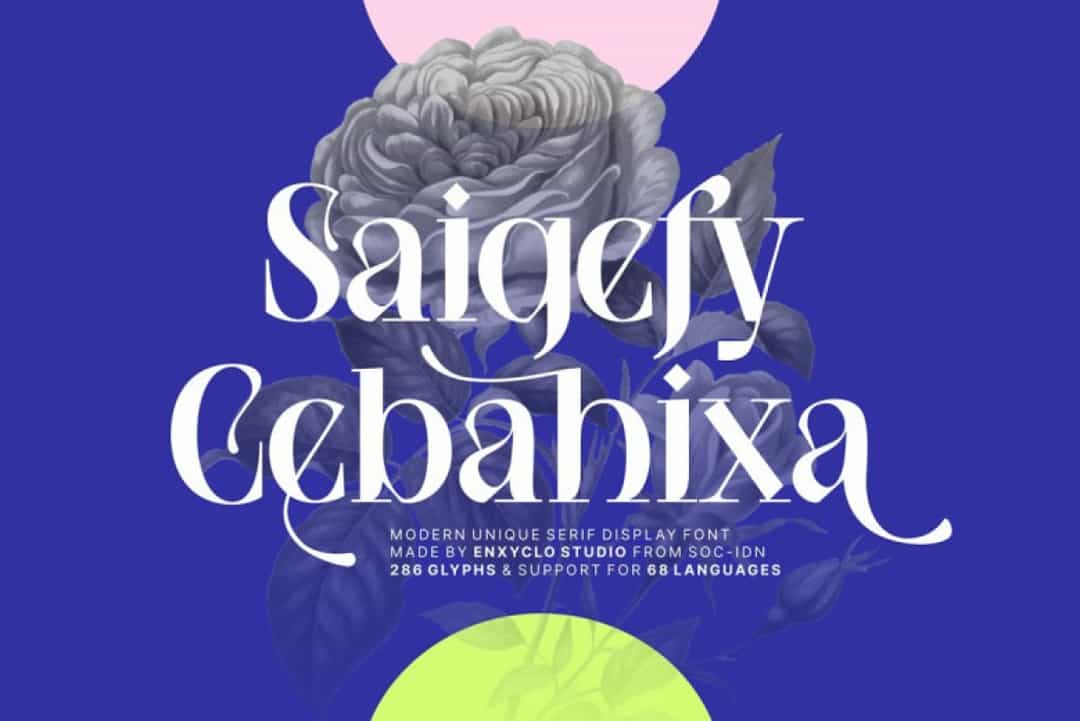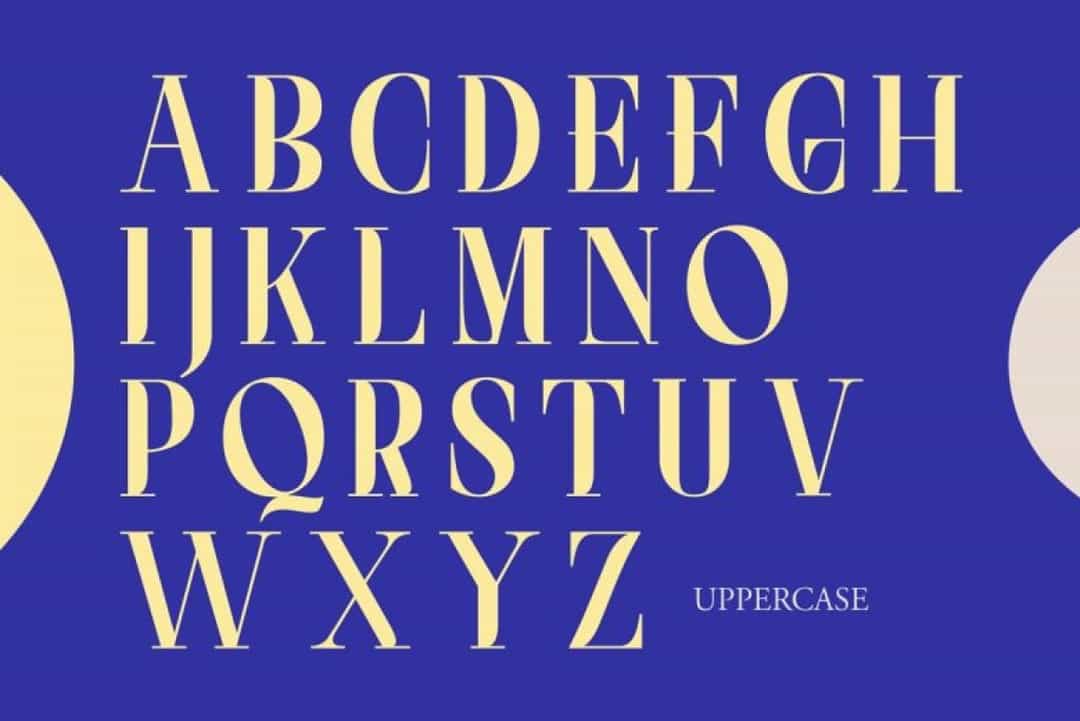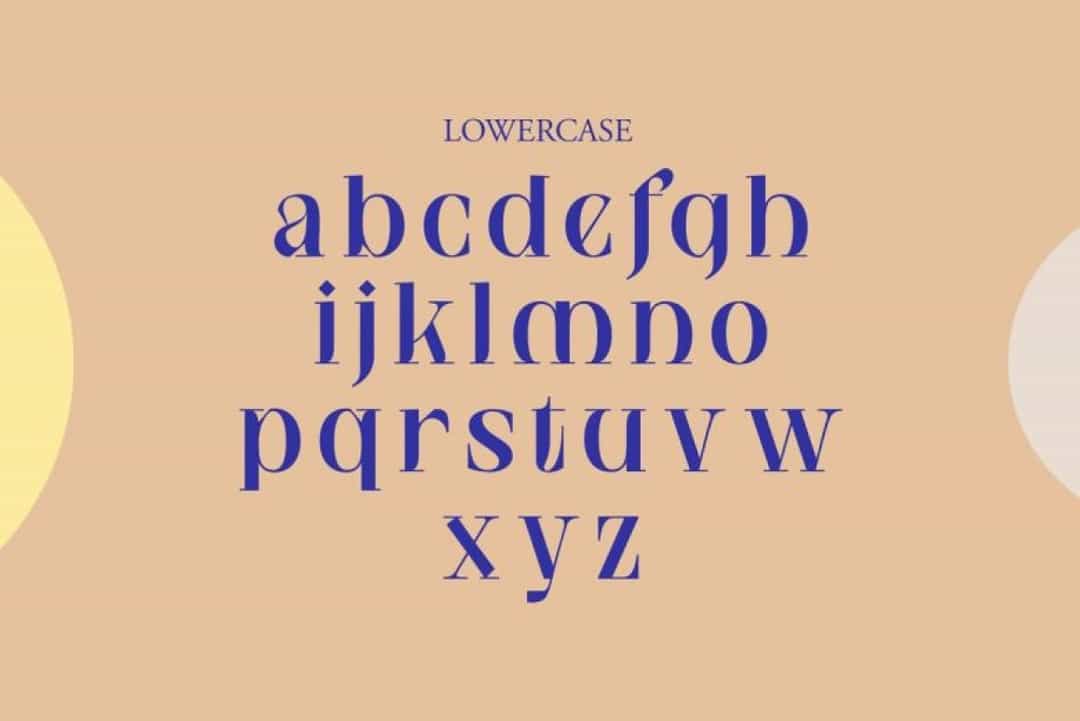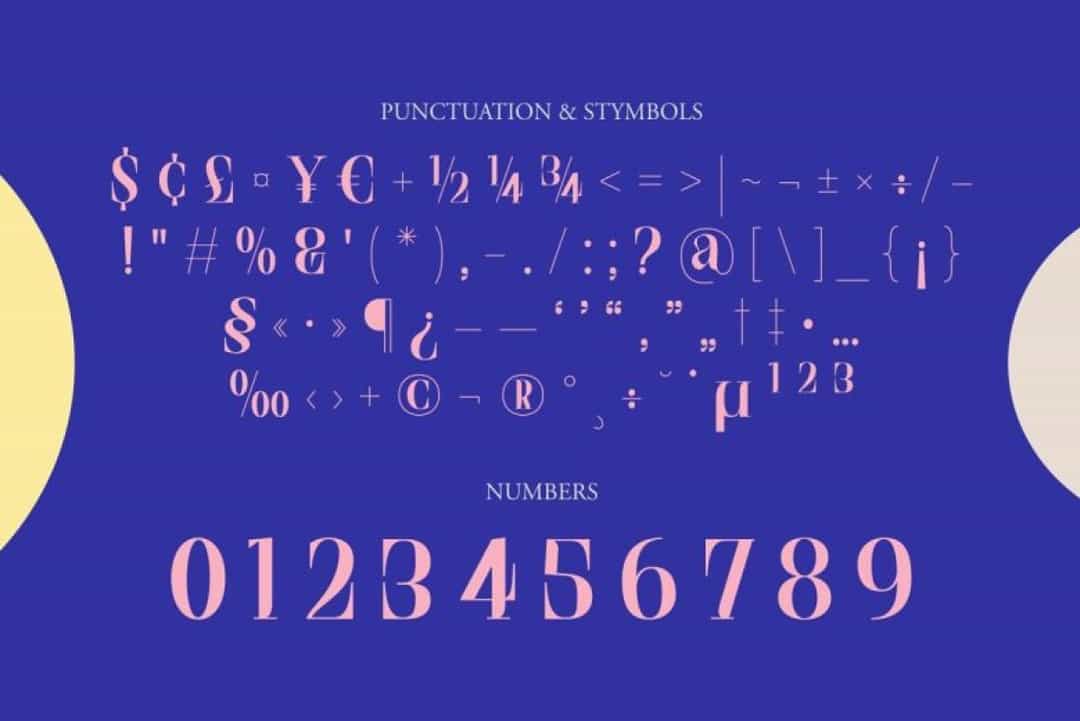
NCL SAIGEFY CEBAHIXA is an exciting serif-based display font. Carefully crafted, this font will become a beloved font instantly, giving every one of your ideas its due prominence! Created to work efficiently across large point sizes while maintaining its appeal at smaller points sizes.